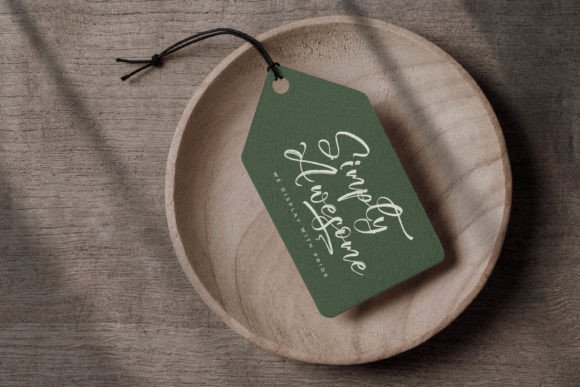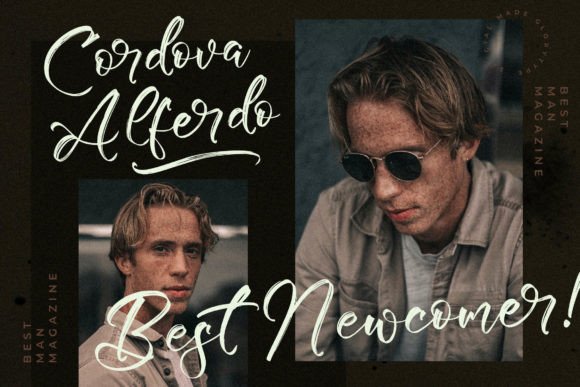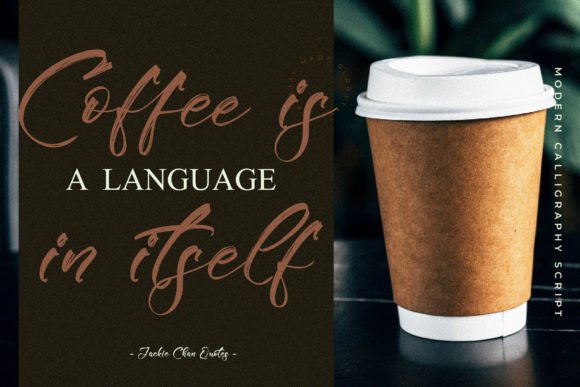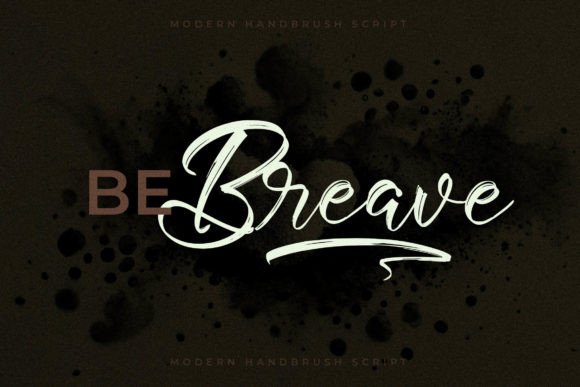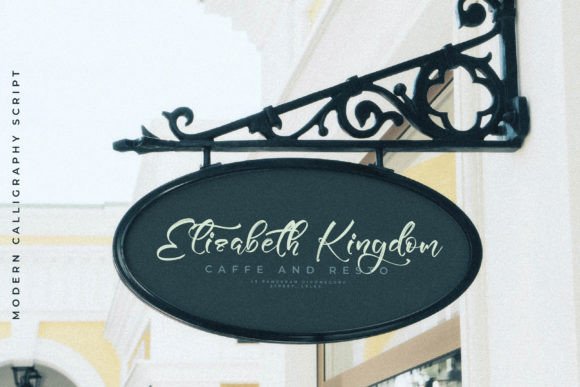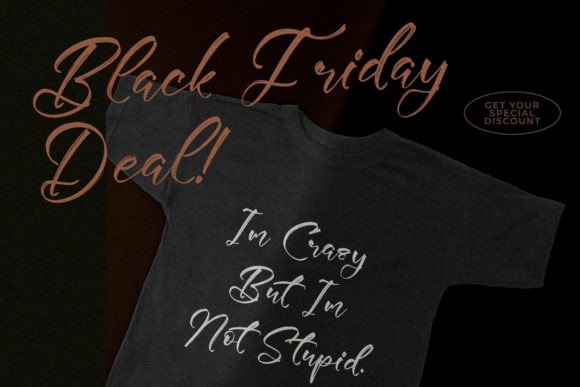
Introducing Arettolesa Font: The Modern Handbrush Script Font for Creative Projects
In the world of design, fonts play a crucial role in conveying the tone and personality of a project. For designers and crafters looking for a unique and beautiful script font, Arettolesa is an excellent choice. This modern handbrush script font is suitable for a wide range of projects, from logos and branding to homeware designs, product packaging, and more.
What is Arettolesa Font?
Arettolesa is a carefully crafted handbrush script font that exudes elegance and sophistication. Its modern design makes it perfect for designers and crafters who want to add a touch of personality to their projects. The font’s unique handbrush style gives it a distinctive look that sets it apart from other script fonts.
Features of Arettolesa Font
Arettolesa font comes with several features that make it an excellent choice for creative projects. Some of its key features include:
- Unique Handbrush Style: Arettolesa’s handbrush style gives it a distinctive look that’s perfect for designers and crafters who want to add a personal touch to their projects.
- Modern Design: The font’s modern design makes it suitable for a wide range of projects, from logos and branding to homeware designs and product packaging.
- High-Quality: Arettolesa font is designed with high-quality and clear lines, making it perfect for use in various projects, including digital and print materials.
- Multilingual Support: The font comes with multilingual support, making it suitable for use in projects that require text in different languages.
Use Cases for Arettolesa Font
Arettolesa font is versatile and can be used in a wide range of projects, including:
- Logos and Branding: Use Arettolesa font to create a unique and memorable logo for your brand.
- Homeware Designs: Add a touch of elegance to your homeware designs, such as cushions, tote bags, and mugs.
- Product Packaging: Use Arettolesa font to create eye-catching product packaging that stands out on store shelves.
- Mugs and Quotes: Create beautiful mugs and quotes with Arettolesa font that make perfect gifts or personal items.
- Posters and Shopping Bags: Use Arettolesa font to create stunning posters and shopping bags that grab attention.
- T-Shirts and Book Covers: Create unique and stylish t-shirts and book covers with Arettolesa font.
- Name Cards and Invitation Cards: Use Arettolesa font to create elegant name cards and invitation cards for special events.
- Greeting Cards and Labels: Add a personal touch to your greeting cards and labels with Arettolesa font.
- Photography and Watermark: Use Arettolesa font to create a beautiful watermark for your photos.
Why Choose Arettolesa Font?
Arettolesa font is an excellent choice for designers and crafters who want a unique and beautiful script font for their projects. Here are some reasons why you should choose Arettolesa font:
- Unique Design: Arettolesa font has a distinctive handbrush style that sets it apart from other script fonts.
- High-Quality: The font is designed with high-quality and clear lines, making it perfect for use in various projects.
- Multilingual Support: Arettolesa font comes with multilingual support, making it suitable for use in projects that require text in different languages.
In conclusion, Arettolesa font is a modern handbrush script font that’s perfect for designers and crafters who want to add a touch of elegance and sophistication to their projects. With its unique design, high-quality, and multilingual support, Arettolesa font is an excellent choice for a wide range of projects, from logos and branding to homeware designs and product packaging. So why wait? Download Arettolesa font today and take your projects to the next level!